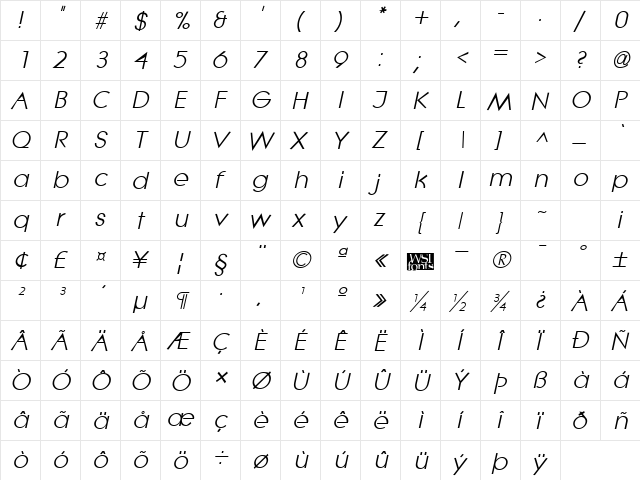
Lithe Italic
Design Context for Lithe Typeface
Lithe offers clean, dependable letterforms without strong stylistic allegiance, making it a practical choice for designers who need flexibility. The slanted form adds forward momentum and visual energy.
Pro Tip: Use Lithe for emphasis, pull quotes, and subheadings where its slanted energy can add rhythm to the layout.